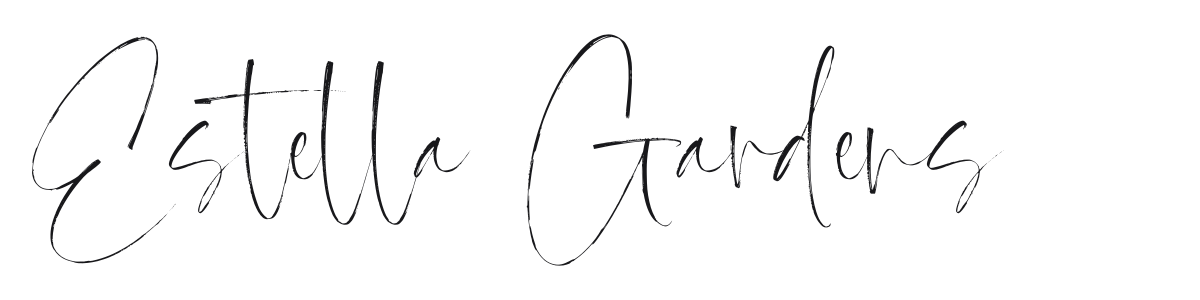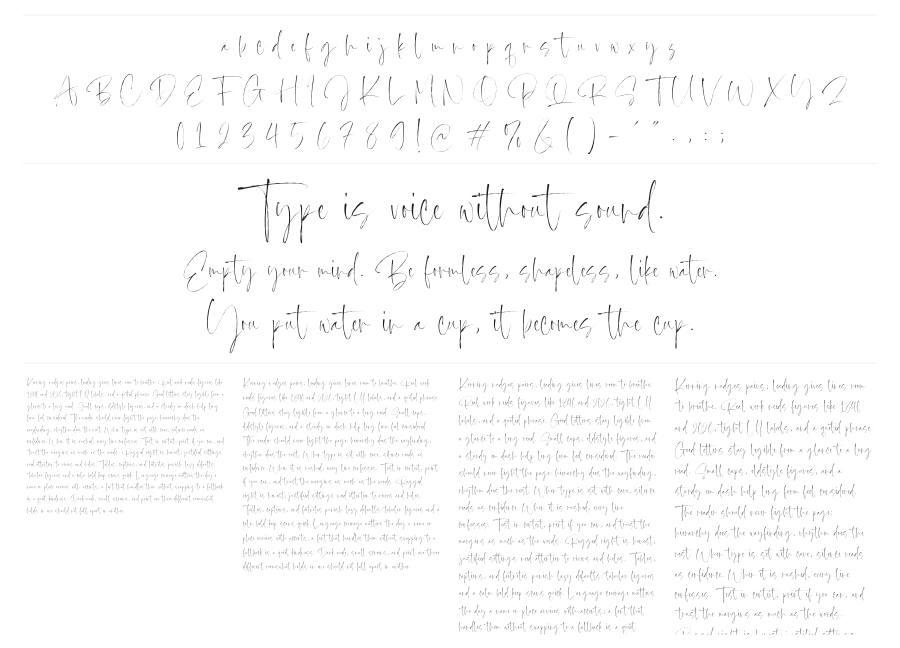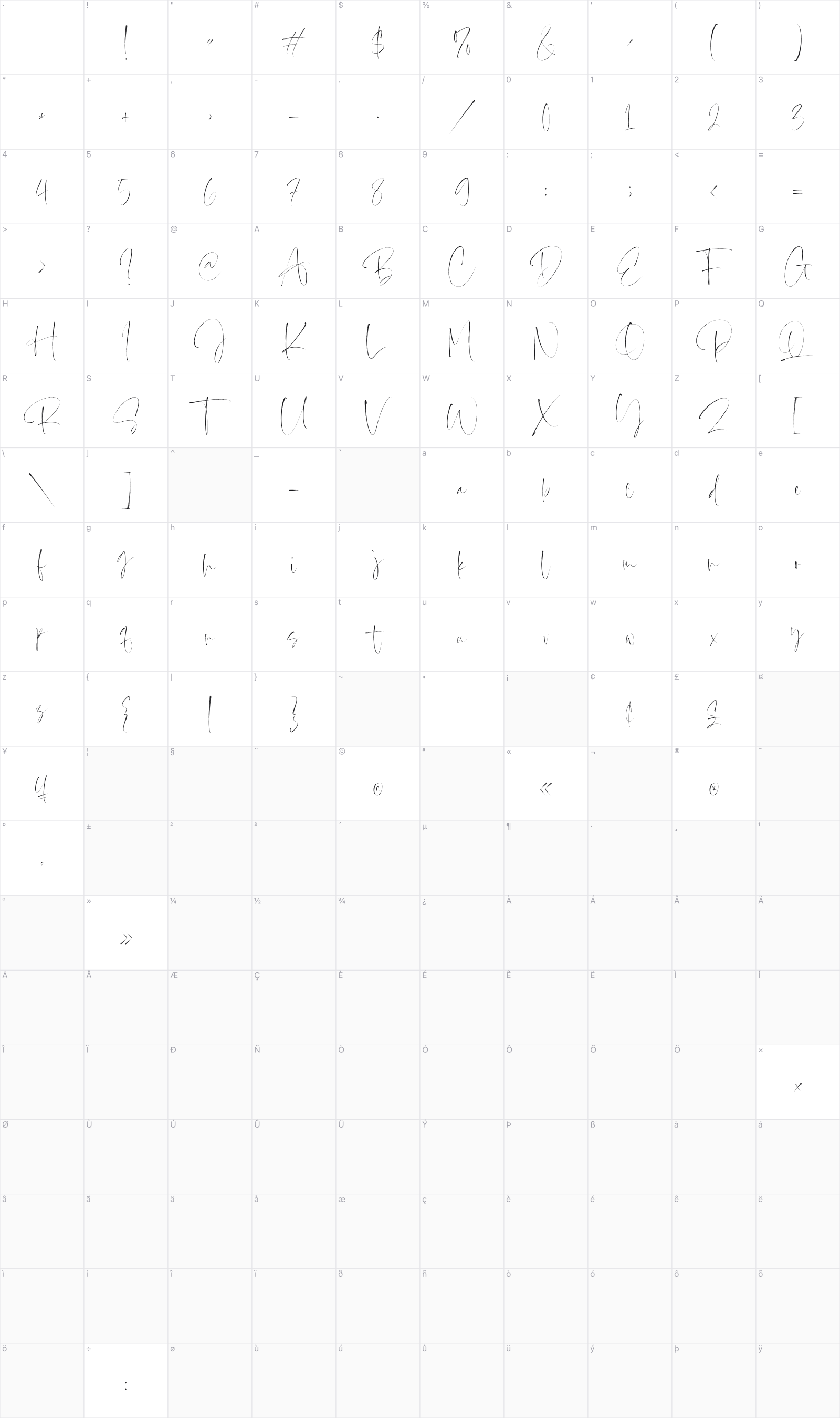
Estella Gardens
Estella Gardens is a hand-brushed script with sweeping strokes, dramatic ascenders, and the raw energy of real brush on paper. The irregular stroke weight and slightly frayed terminals keep it feeling genuinely handcrafted rather than polished to sterility. A go-to for wedding stationery, boutique branding, and anything that needs a personal, artisanal touch.